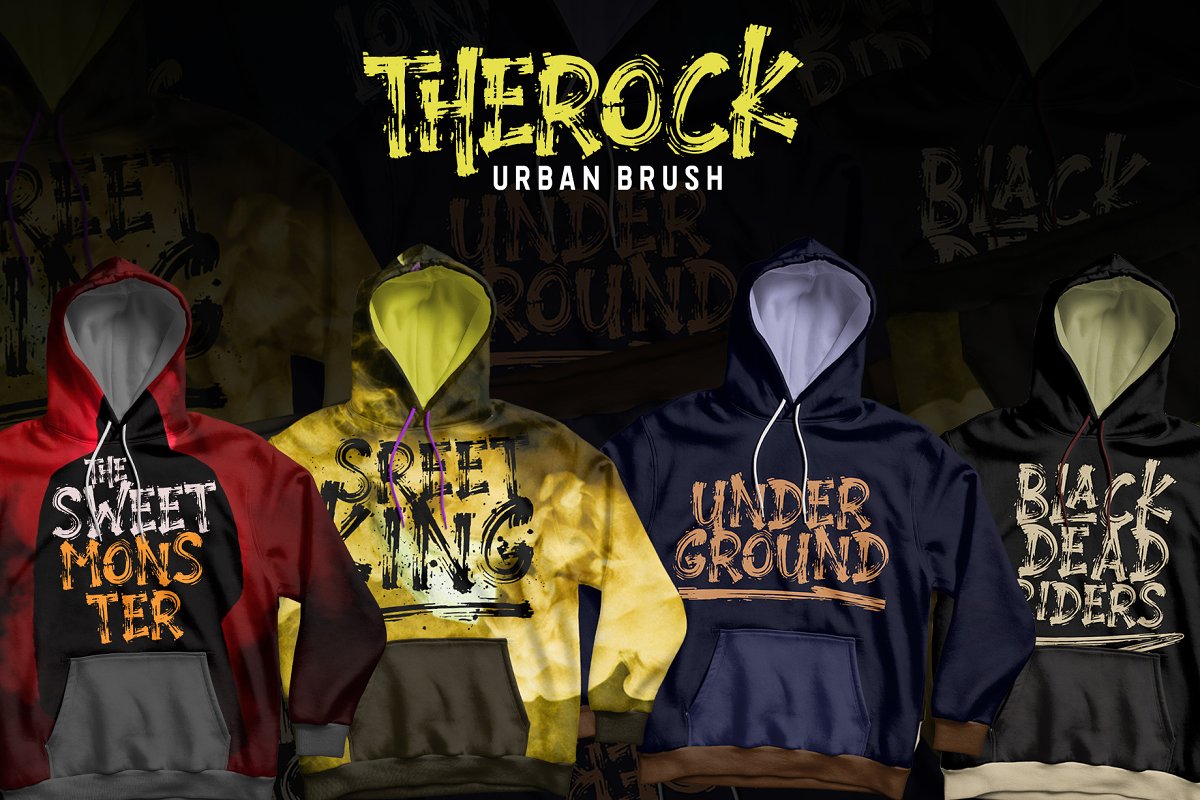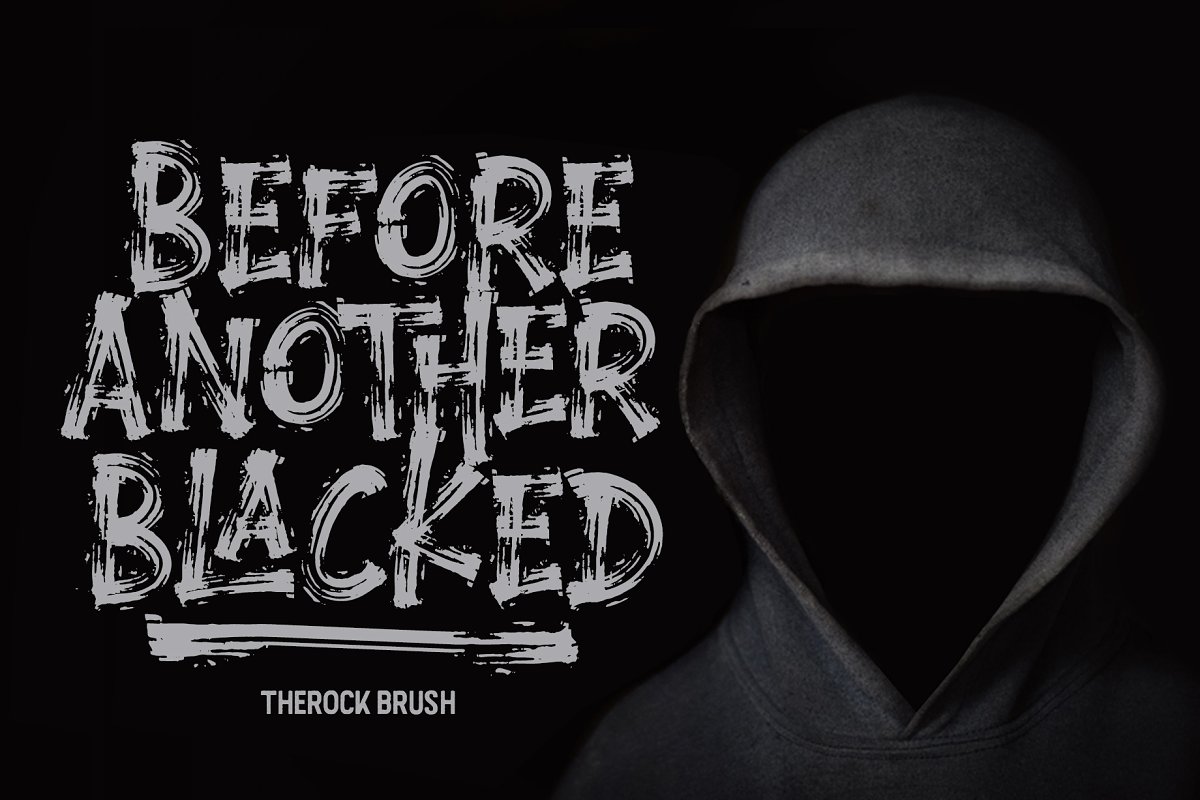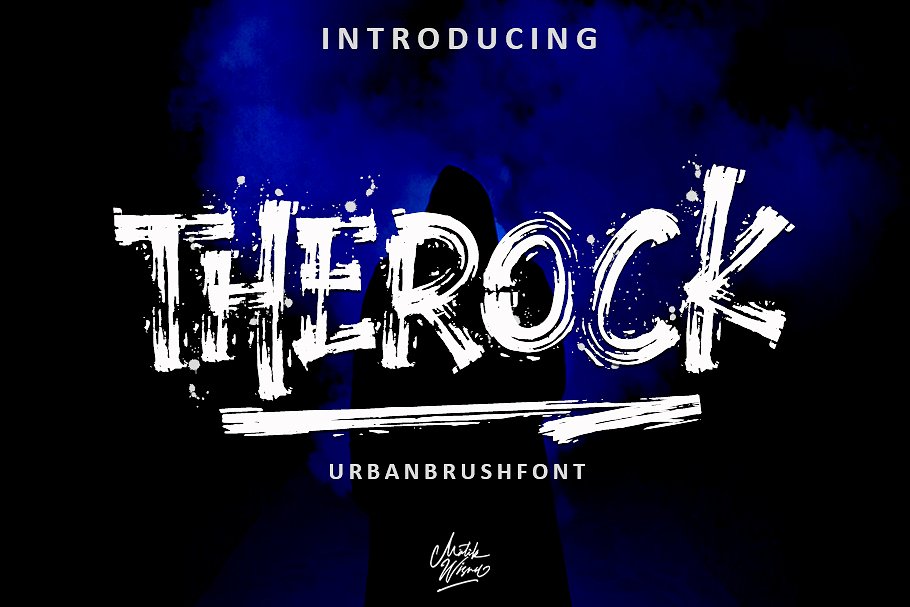
Therock Urban Brush Font
Hi designer. A new urban brush Typeface. A perfect addition to the professional designers font. Introducing Therock Font. THEROCK Brush Font is a supercharged, street-wise brush font bursting with energy. With extra attention to quick strokes and sharp details, THEROCK is ideal for logos, apparel,T-shirt,Hoodie, quotes, product packaging, or anything which needs a typographic turbo-boost.